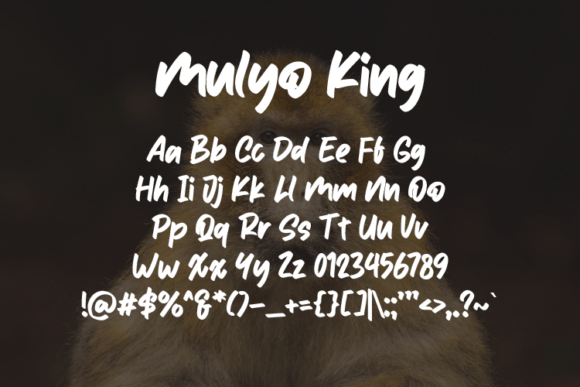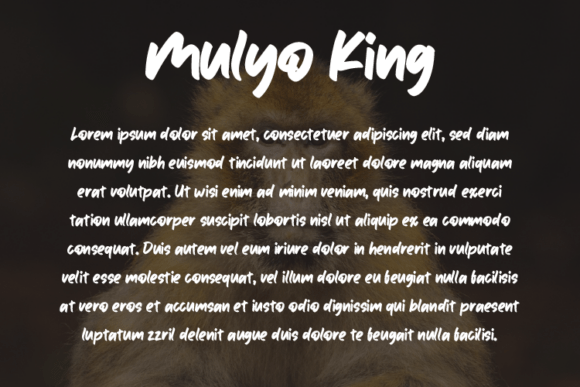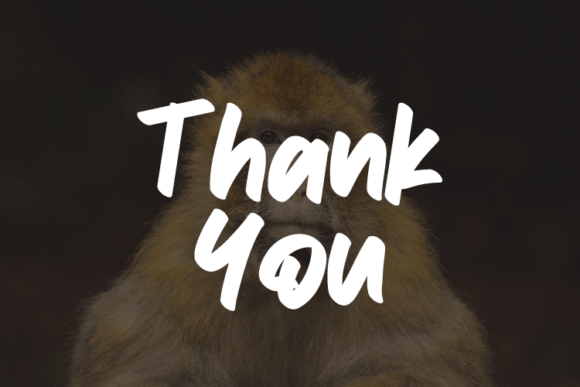
Introduction to Mulyo King Font Font
Fonts play a crucial role in design, and the Mulyo King Font font is a typeface that brings both character and versatility to any project. Whether you’re working on a branding project, a website, or a print design, the Mulyo King Font font offers a unique style that can elevate your work.
Mulyo King is a high-energy, confident, and expressive handwritten script font.
Its thick, swift strokes and slightly angular connections give it a raw, dynamic, and assertive signature style This typeface is perfect for energetic branding, sports-related graphics, custom apparel, impactful headlines, and any project that requires a bold, authentic, and charismatic hand-lettered touch.
Key Features of Mulyo King Font Font
Why Choose Mulyo King Font Font?
The Mulyo King Font font is more than just a typeface – it’s a design tool that helps you communicate your message with style and clarity. Its unique character set and versatile design make it suitable for a wide range of applications, from elegant invitations to bold headlines.
With its carefully crafted letterforms and balanced proportions, the Mulyo King Font font ensures readability and visual appeal across all mediums.
What makes Mulyo King Font font special?
The Mulyo King Font font stands out with its unique design, exceptional readability, and versatility across various design applications.